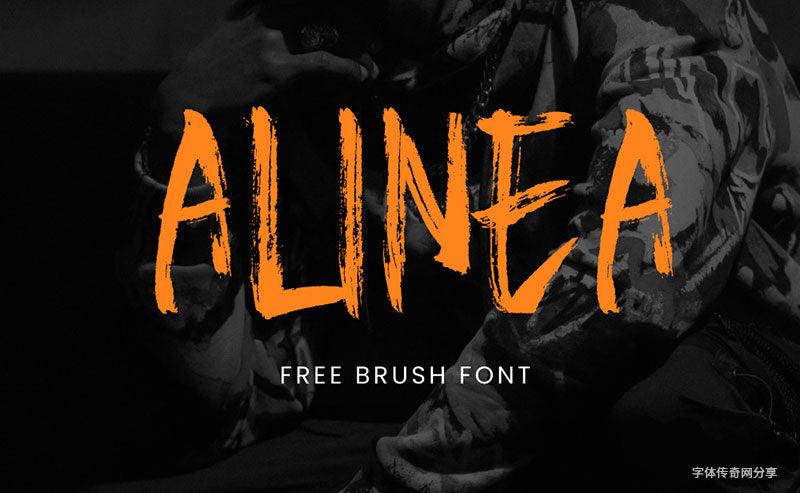
Free Font -Bold Handwritten Brush English Font Alinea – Dynamic & Artistic Typography
- Font Name: Alinea Handwritten Brush English Font
- Font Style: Handwritten Brush / Bold & Vivid / Trendy & Artistic
- Application Scenarios: Street art posters, hip-hop music covers, bold brand logos, creative social media graphics, urban-themed designs
- Powerful Visual Impact: Features thick, expressive brush strokes and bold letterforms, creating a striking, energetic atmosphere that dominates any design.
- Unique Handwritten Charm: Mimics authentic hand-painted brush effects, adding a raw, creative vibe and making designs stand out with personality.
- Versatile Adaptability: Perfect for edgy branding, artistic promotions, or bold visual content—enhances designs in music, fashion, street culture, and more.